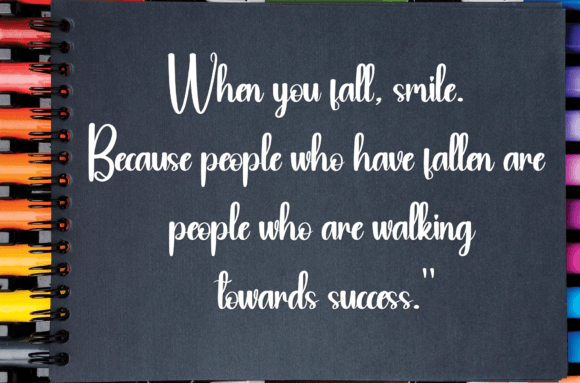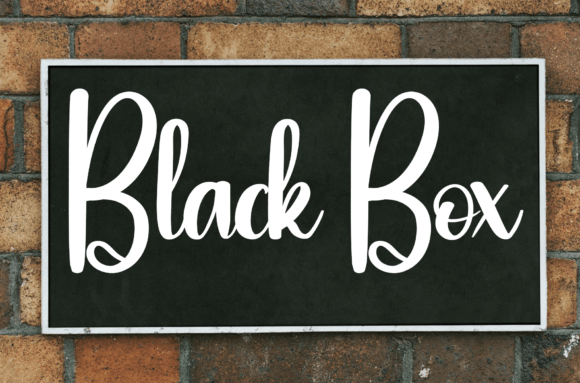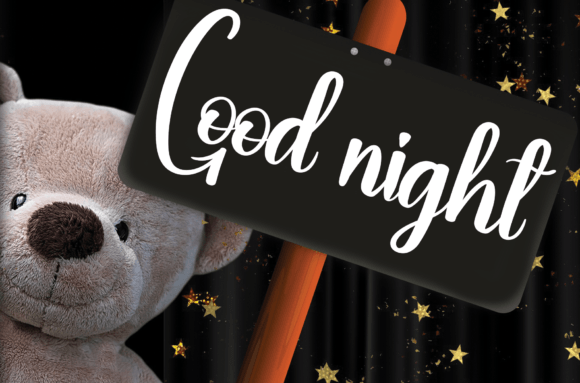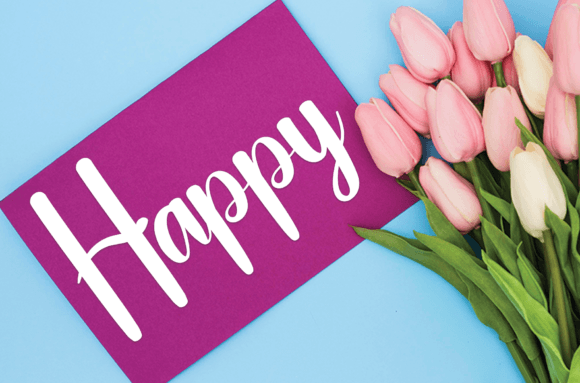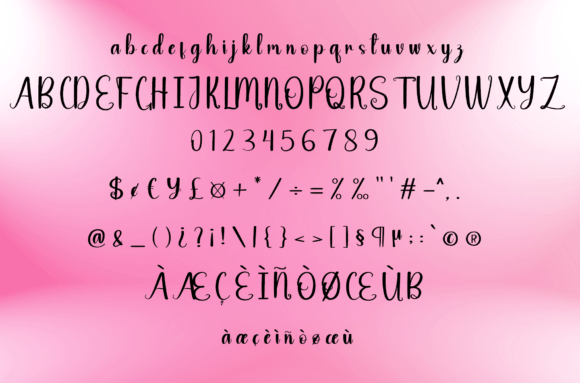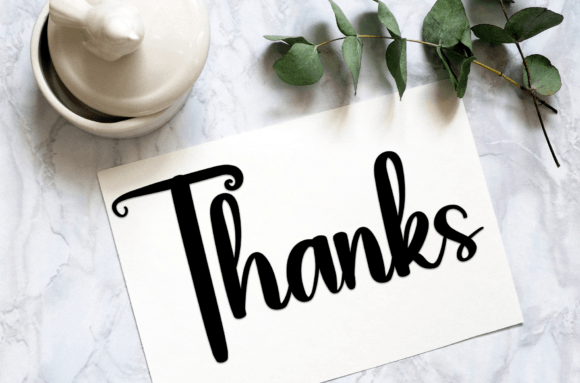
Mellody Font
What Is Mellody Font?
Mellody is a sweet and friendly handwritten font designed to add a joyful and personal touch to any project. With its smooth curves and charming character, it brings warmth and life to your words. If you want your text to feel approachable and fun, Mellody is the perfect choice.
From the first glance, it makes your designs stand out with a unique personality that feels genuine and inviting.
Mellody is a highly versatile font that works beautifully in many situations. It’s perfect for wedding invitations where you want to create an elegant yet heartfelt impression. Whether your theme is modern, rustic, or classic, Mellody adds a touch of charm that makes every detail feel special.
It’s also an excellent option for greeting cards. When you’re sharing birthday wishes, thank-you messages, or holiday greetings, Mellody helps you express them with sincerity and style.
On social media graphics, Mellody brings a cheerful, approachable look that grabs attention. Use it for quotes, announcements, or product promotions, and your posts will feel fresh and engaging.
If you design packaging or labels, Mellody adds a handmade feel that makes any brand appear warm and authentic. From small business branding to personal projects, this font fits effortlessly into any style.
Why Choose Mellody Font?
There are plenty of reasons to include Mellody in your font collection. First, it stays clear and legible in any size, so you can use it confidently for headlines, body text, or tiny details.
It pairs beautifully with serif and sans-serif fonts, giving you the freedom to create balanced and polished layouts.
Mellody is also PUA encoded, which means you can access all swashes, alternates, and special glyphs without needing extra software. Customizing your text is quick and enjoyable.
Mellody brings warmth, playfulness, and character to any design. Even the simplest layouts feel more engaging with its sweet handwritten style. Whether you’re designing wedding stationery, social media posts, or product packaging, Mellody helps your work look polished and memorable.
A quality handwritten font also shows your care for detail and helps create a positive impression.
Mellody isn’t just a font—it’s a creative tool that helps your ideas shine with authenticity and joy. From invitations and cards to branding and labels, it adds a personal touch that elevates every project.